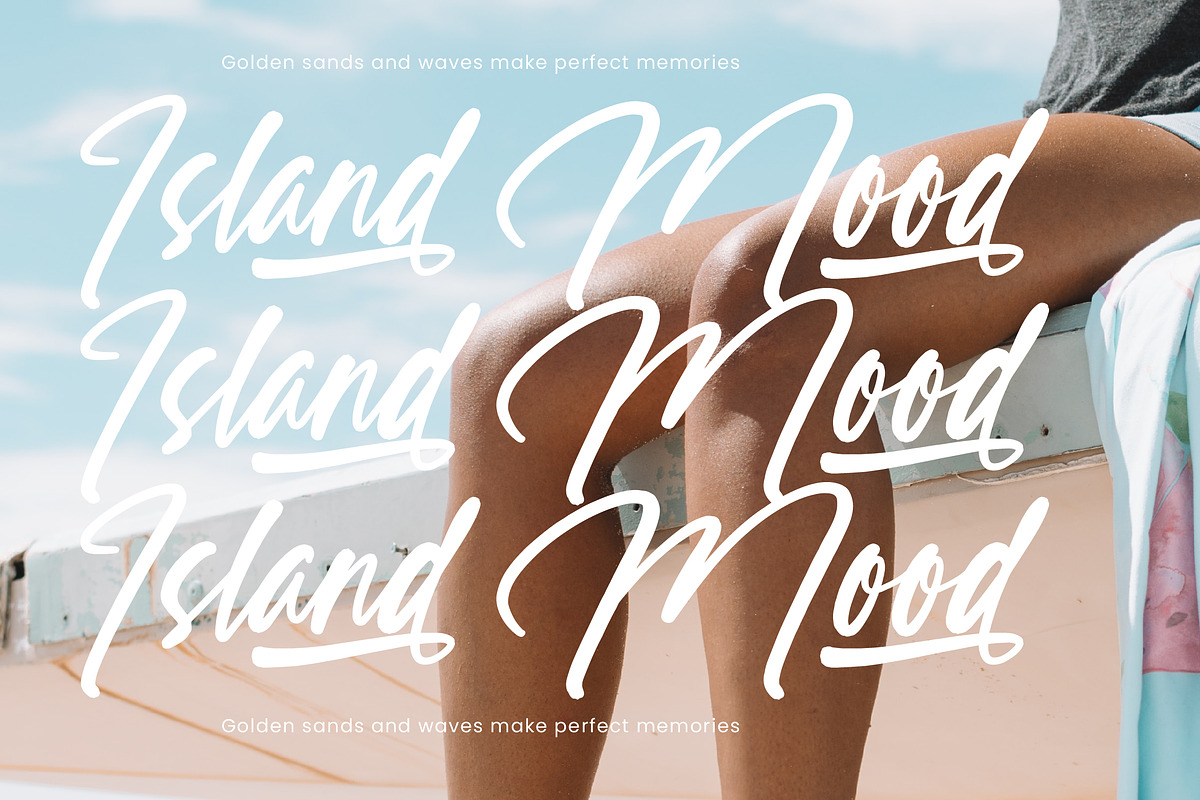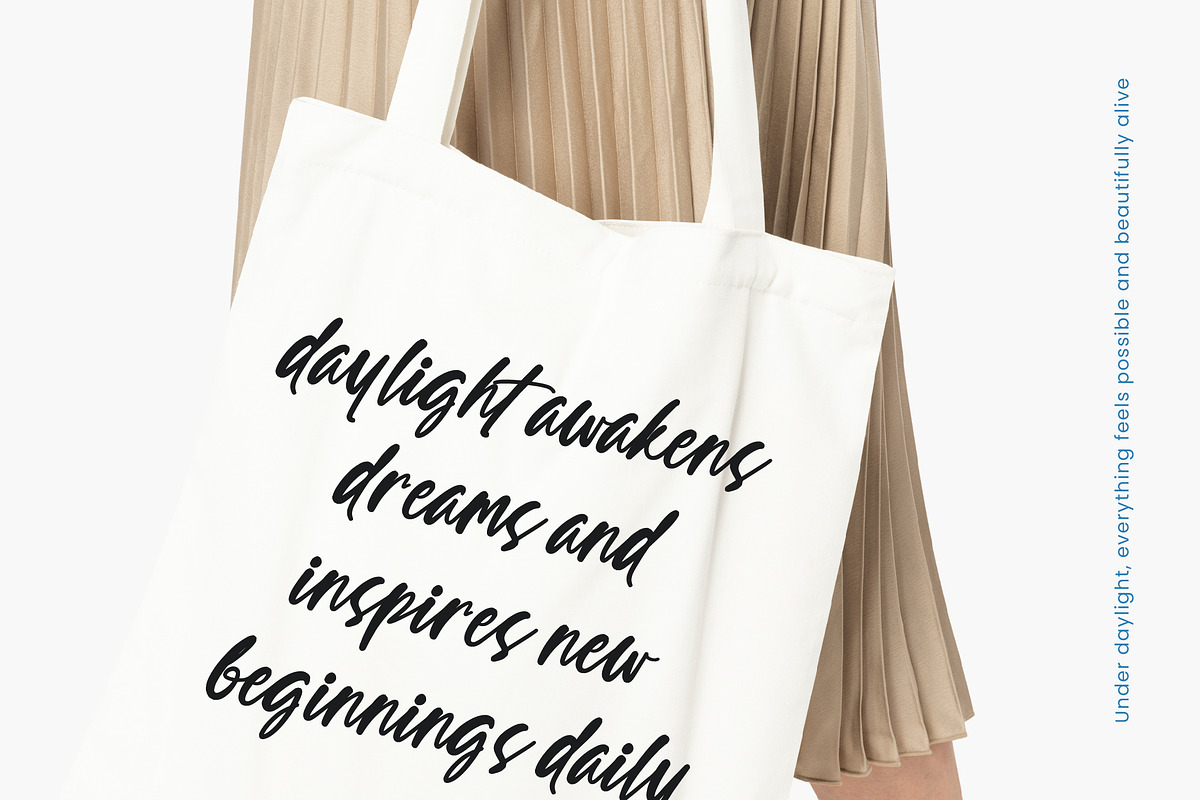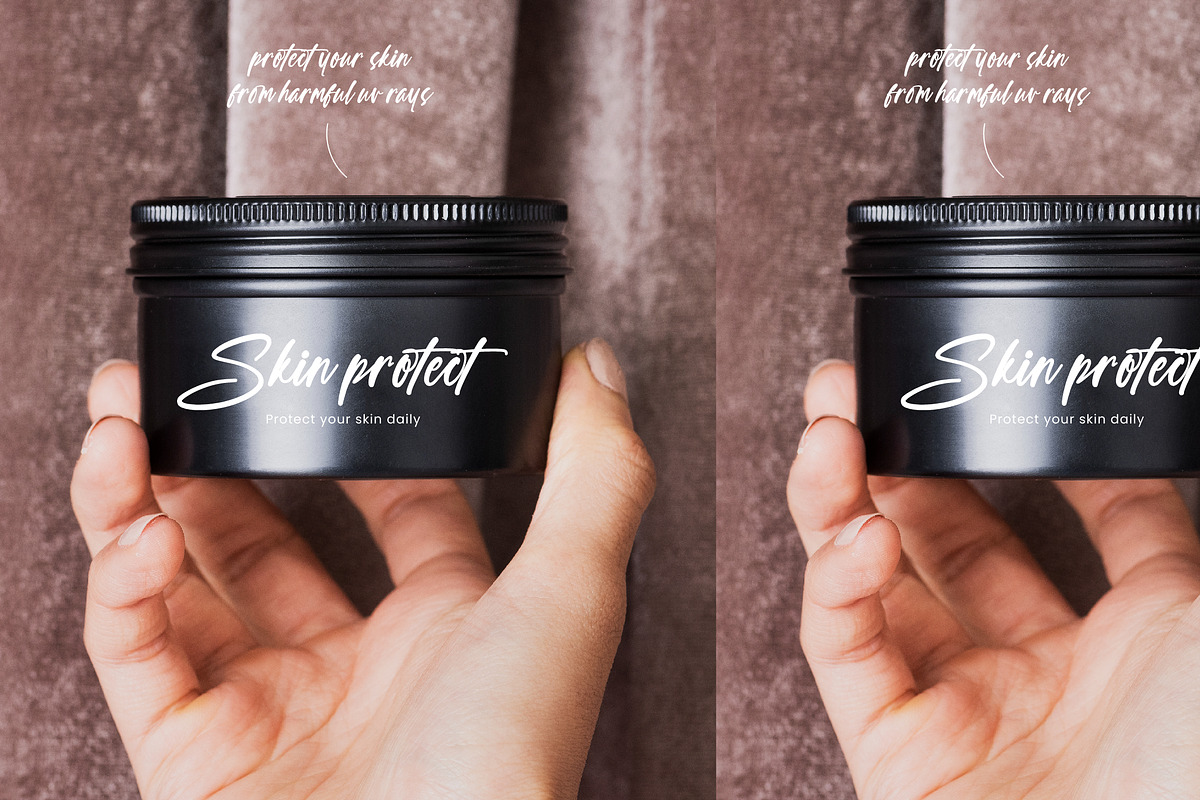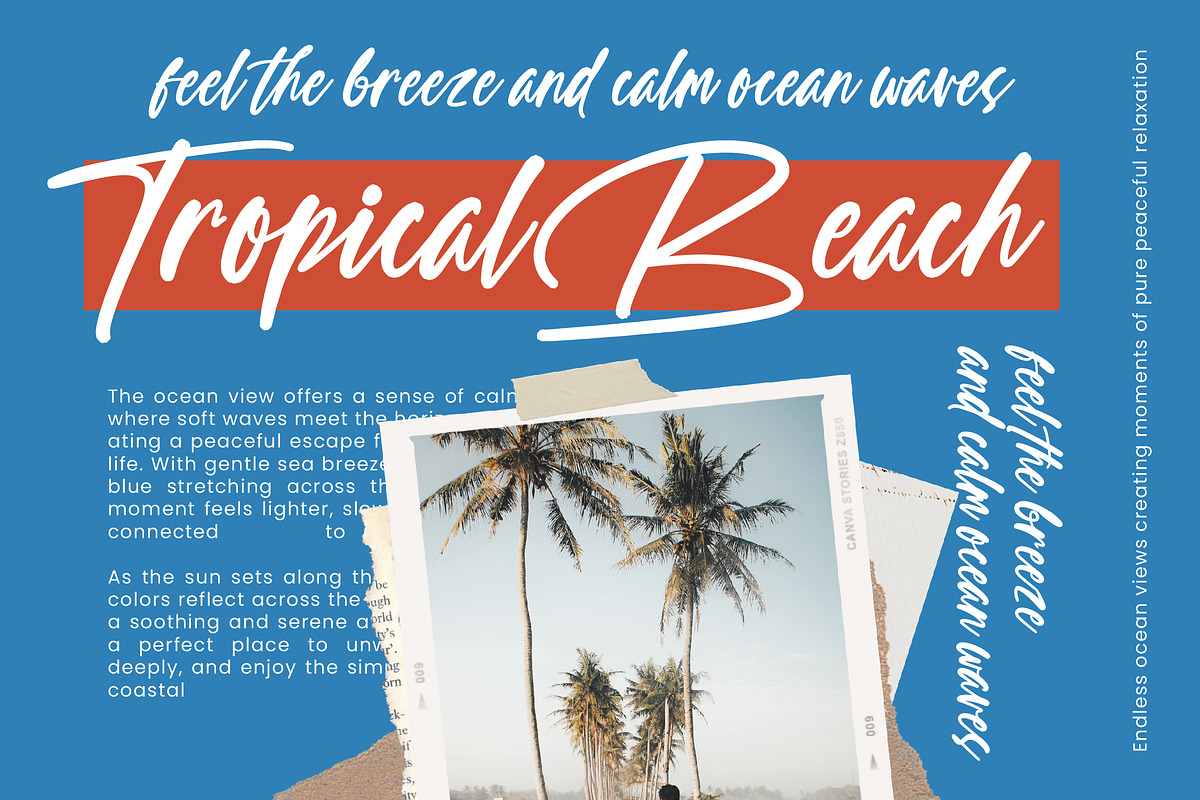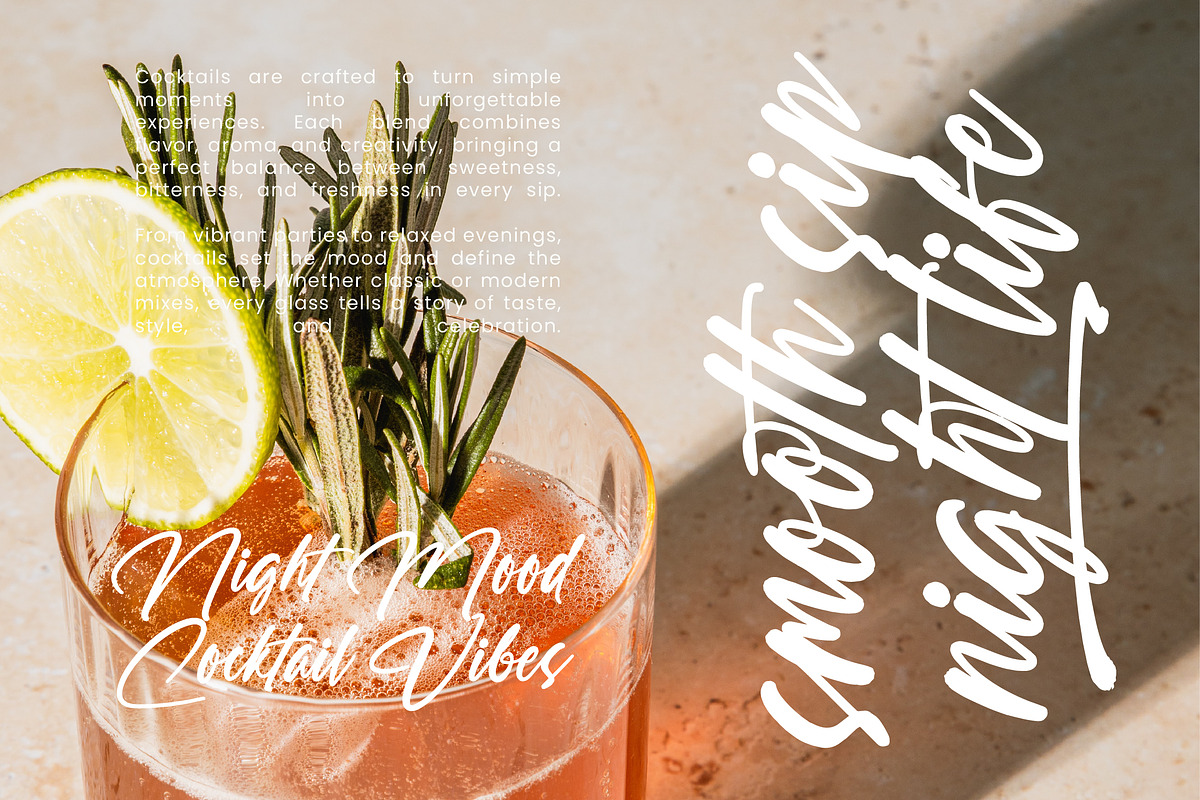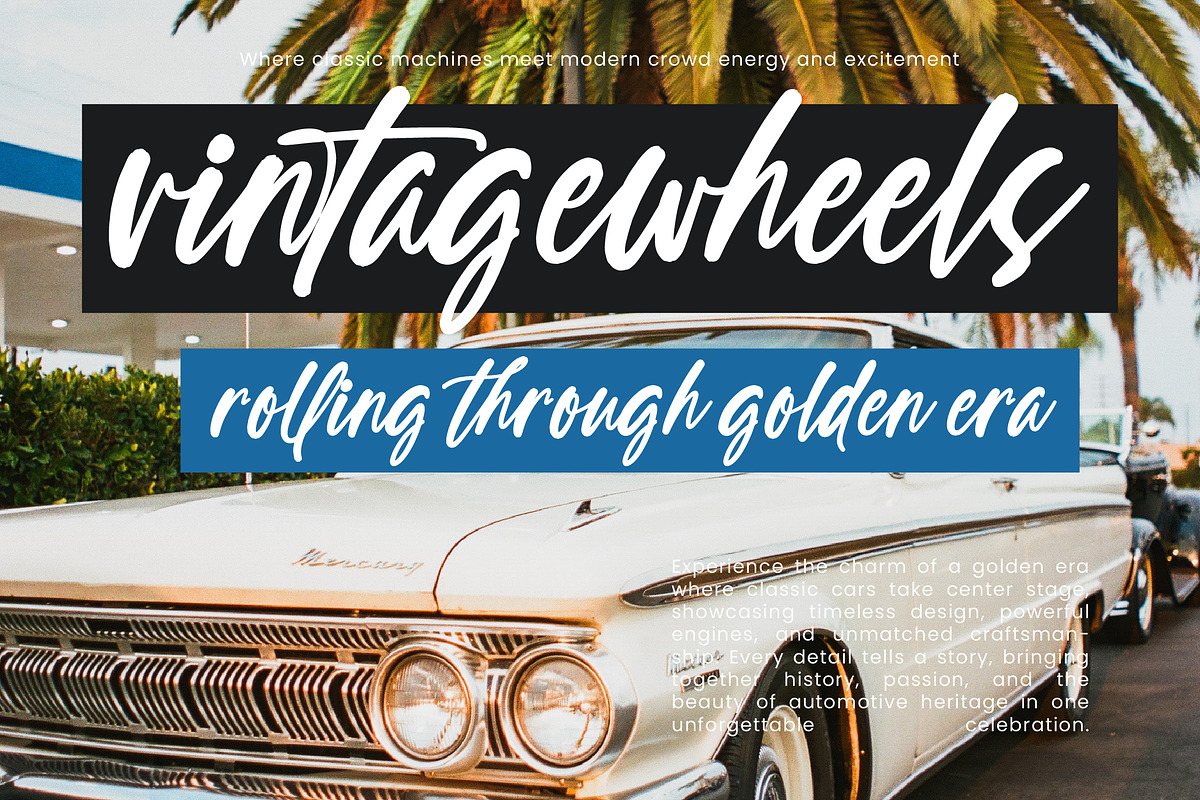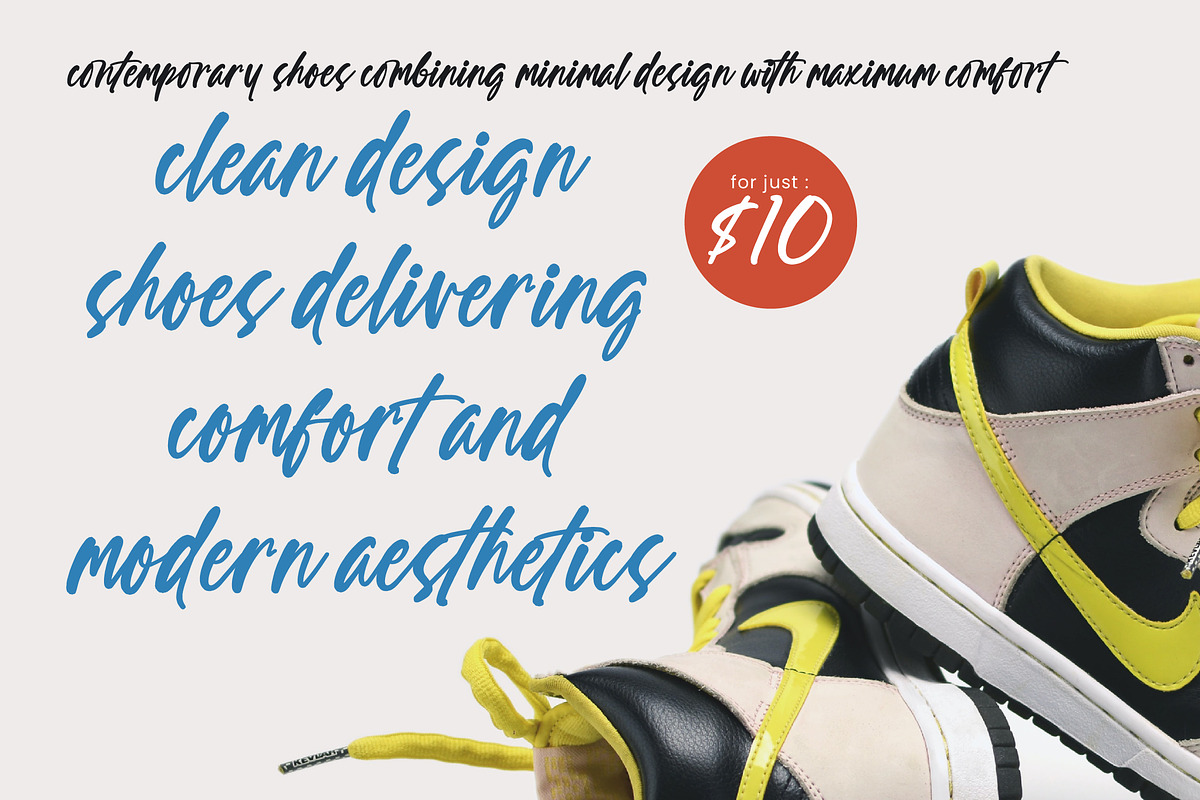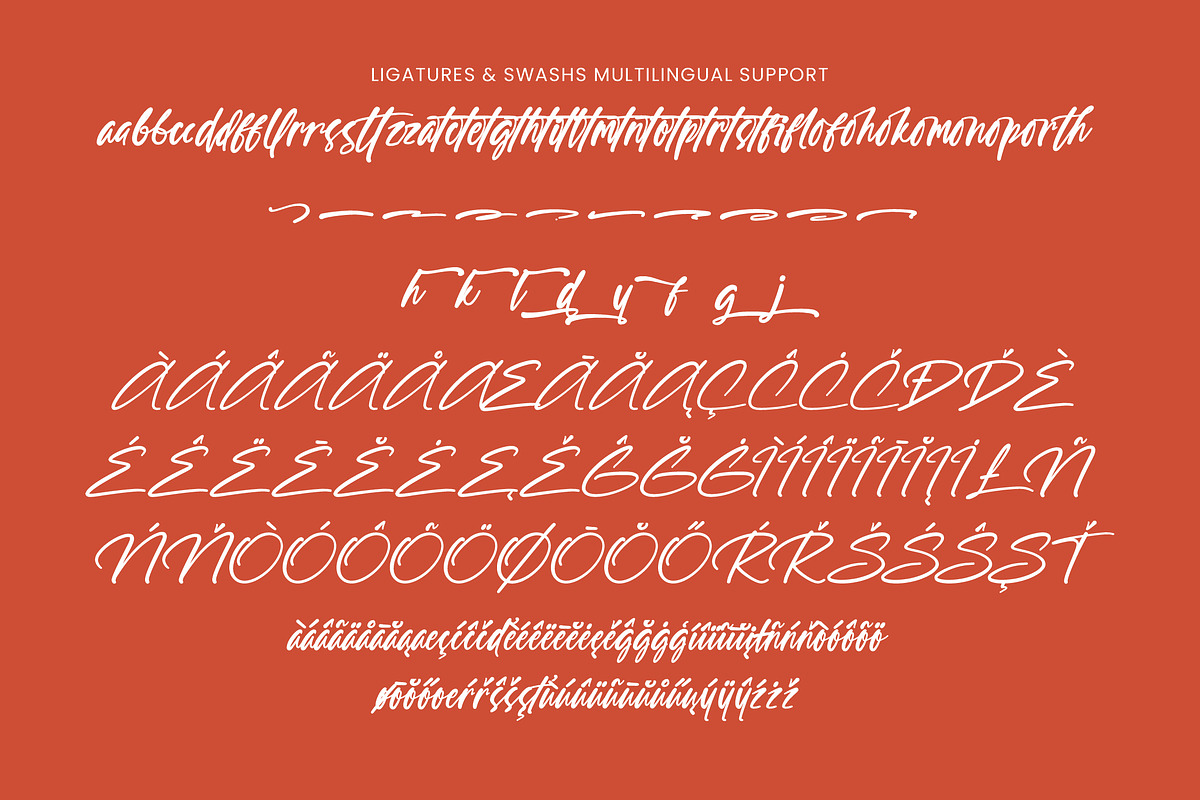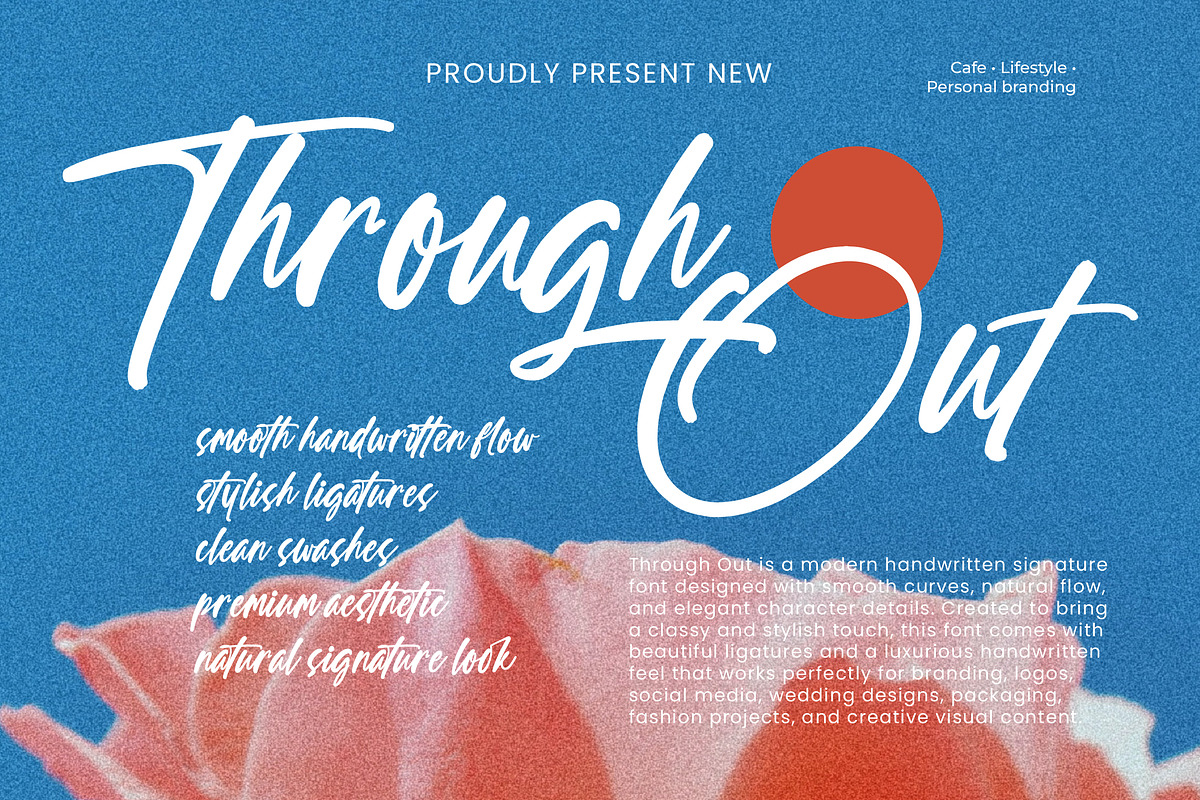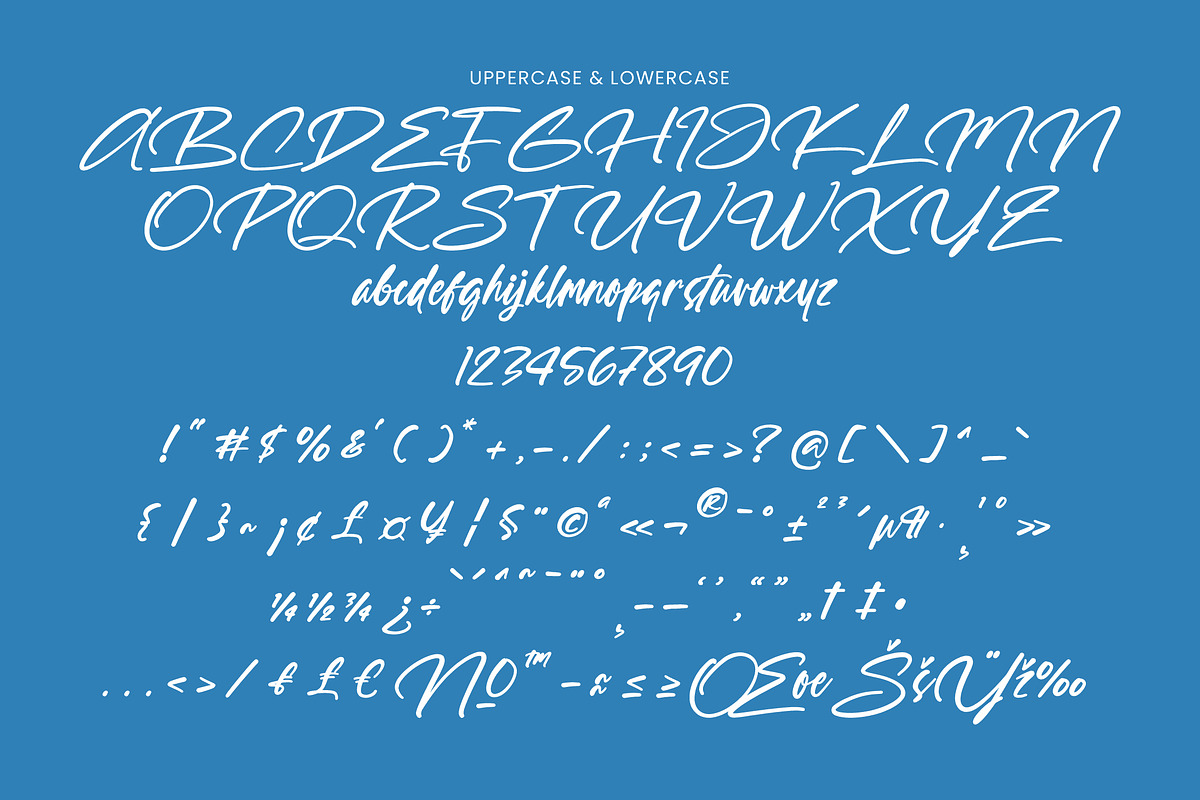
Through Out Handwritten Signature
Through Out – Modern Handwritten Signature
Through Out is a modern handwritten signature font designed with smooth strokes and elegant flow. Inspired by authentic handwriting, this font creates a luxurious and personal feel suitable for modern branding projects.
Perfect for logos, beauty branding, wedding invitations, social media, packaging, photography watermarks, and editorial layouts, Through Out delivers sophistication with a natural handwritten touch.
Its clean signature style makes every design feel refined, stylish, and effortlessly professional.
Signature Handwritten Style